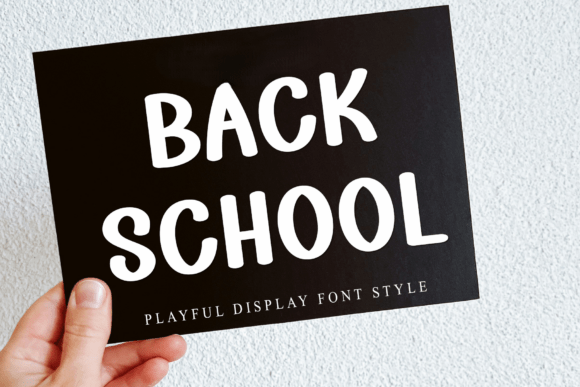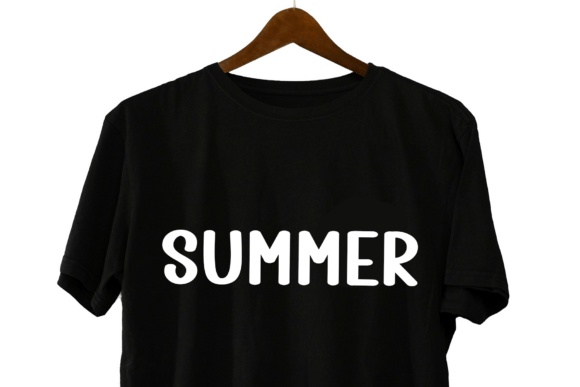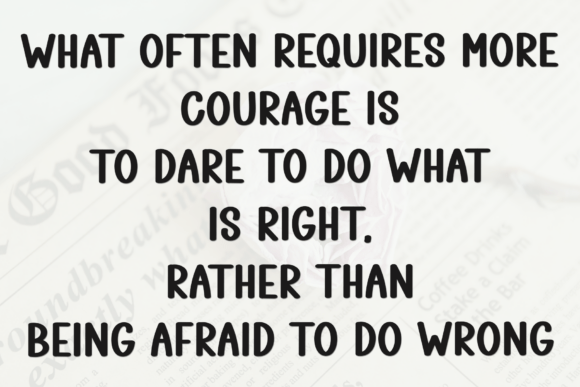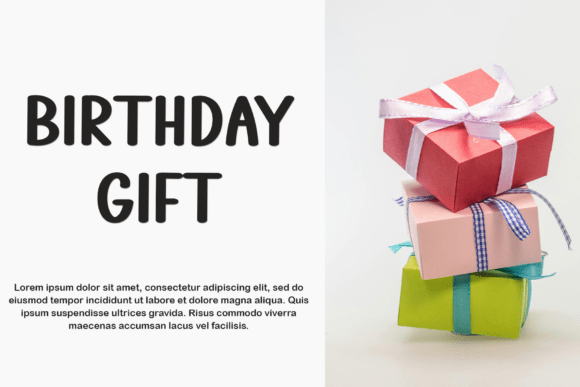
Back School Font
About the Back School Font
The wait is over! The incredible Back School Font is now available for your design toolkit. Back School is a bold, playful display font that captures the excitement of heading back to the classroom. With chunky, fun letters and a friendly vibe, it’s great for school projects, kids’ designs, posters, and educational content.
Back School Font excels in headlines, posters, and short, impactful text for projects targeting a younger audience. Its playful nature makes it ideal for children’s books, branding for educational toys, or event signage. However, its bold weight and relatively large x-height make it unsuitable for body text or lengthy paragraphs; readability would suffer.
Consider pairing Back School with a clean sans-serif like Open Sans for body copy to provide contrast and enhance legibility. For a more sophisticated feel, a delicate script font could add a touch of elegance, offsetting the font’s playful energy. Avoid pairing it with other heavy or overly decorative fonts.
The font’s overall personality is undeniably friendly and energetic, conveying a sense of youthful enthusiasm and approachability. This makes it a strong choice for brands wishing to project a fun and approachable image.
Back School Font Example